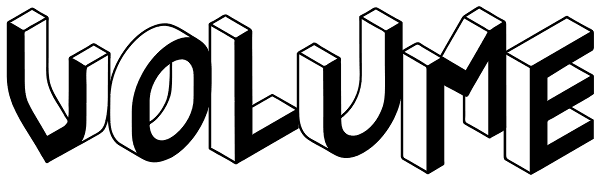
Volume
Volume is a 3D font, with interlocked characters, inspired by vintage wooden block capitals! Superimposed weights bring light and shadow on the structure and allows many coloured combinations. Cubo est une fonte en volume dont les lettres...